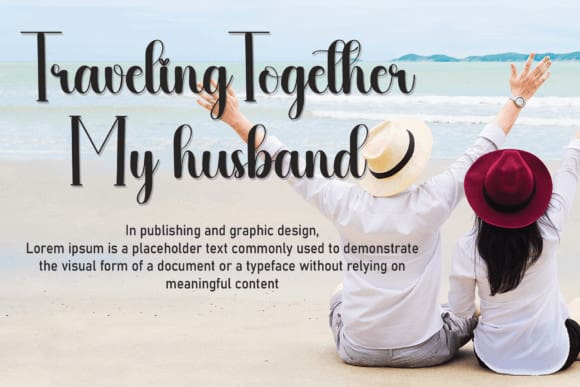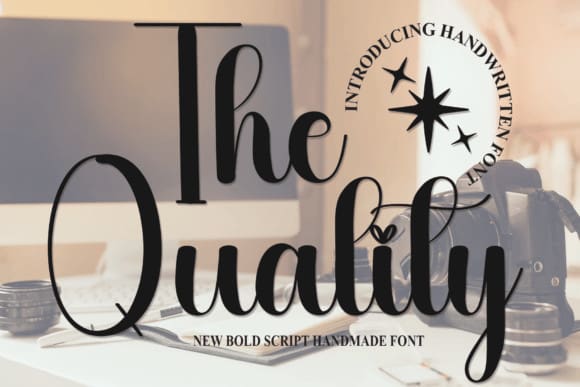
The Quality Font
The Quality Font is a sweet and friendly handwritten font. Cute and fun, this font is ideal for writing wedding invitations, cards, or any other design that might need a fun touch!